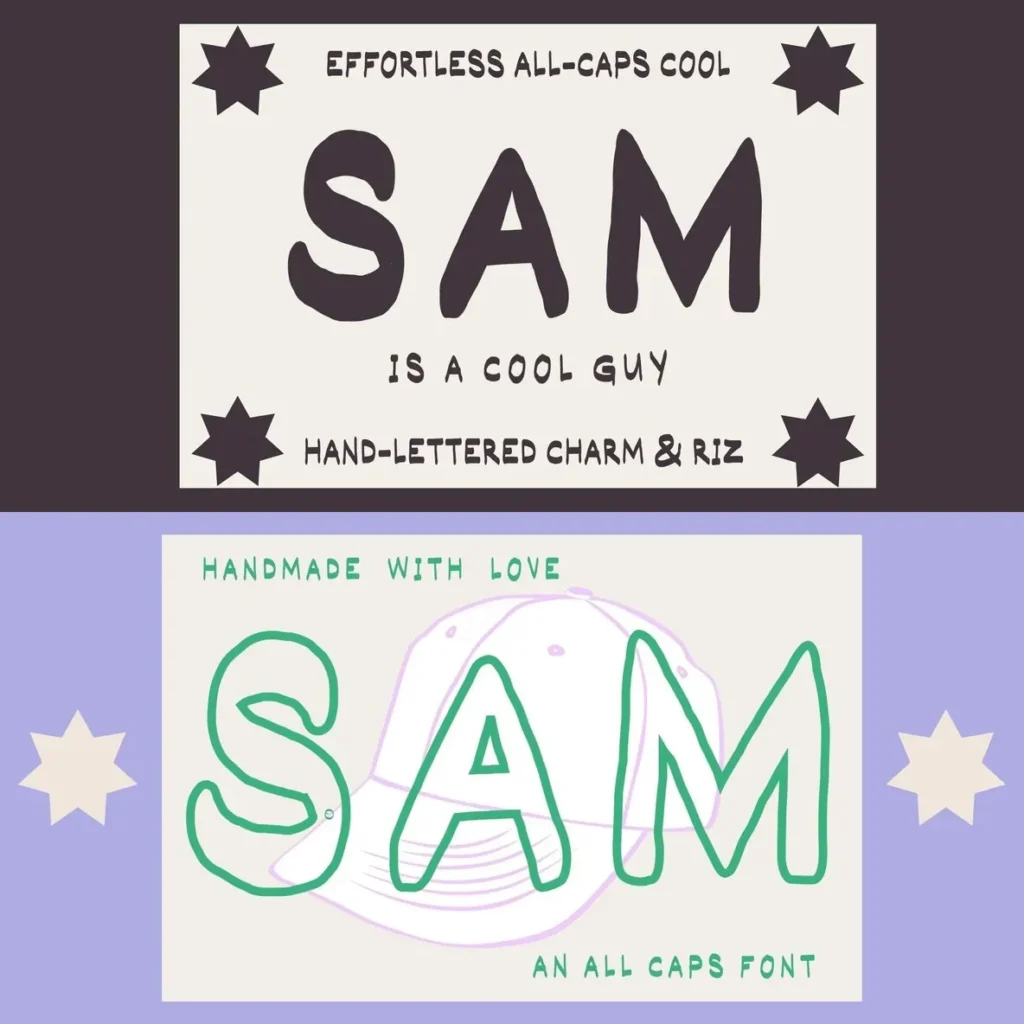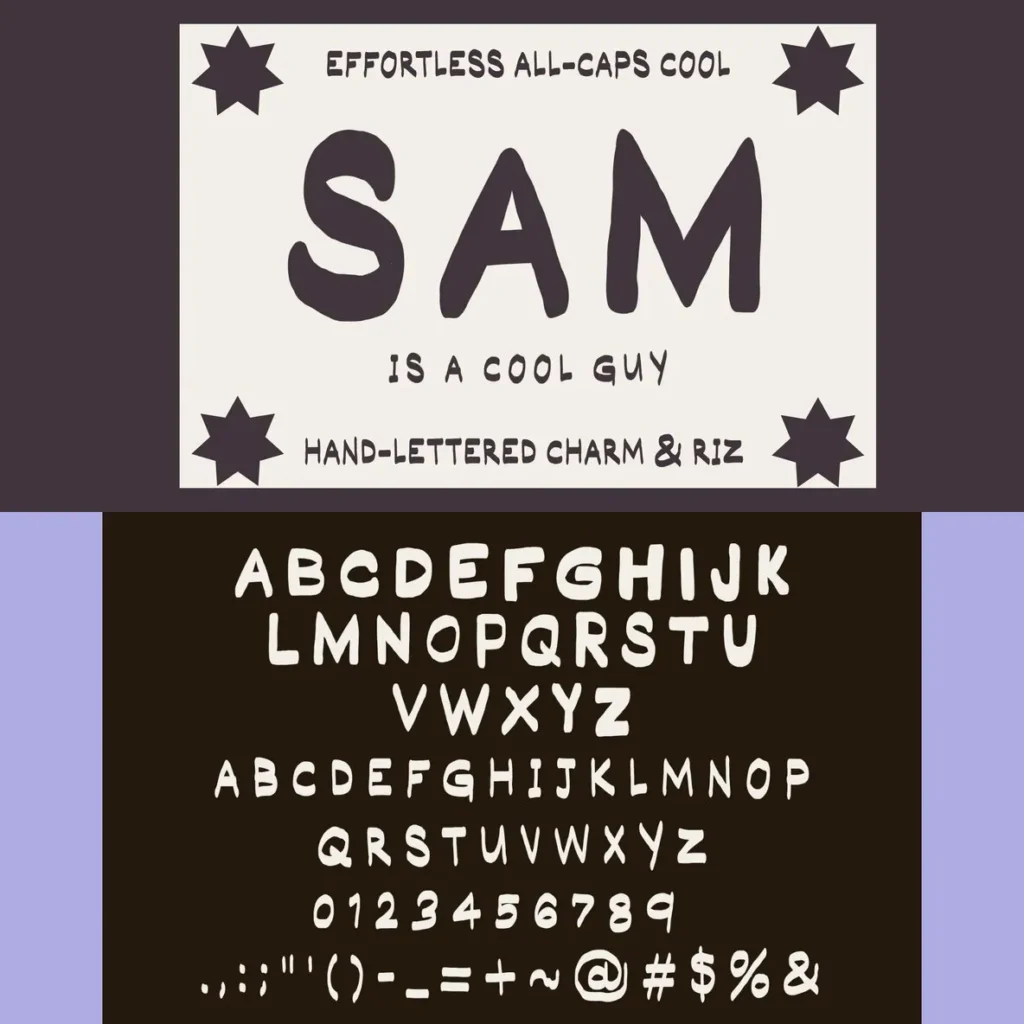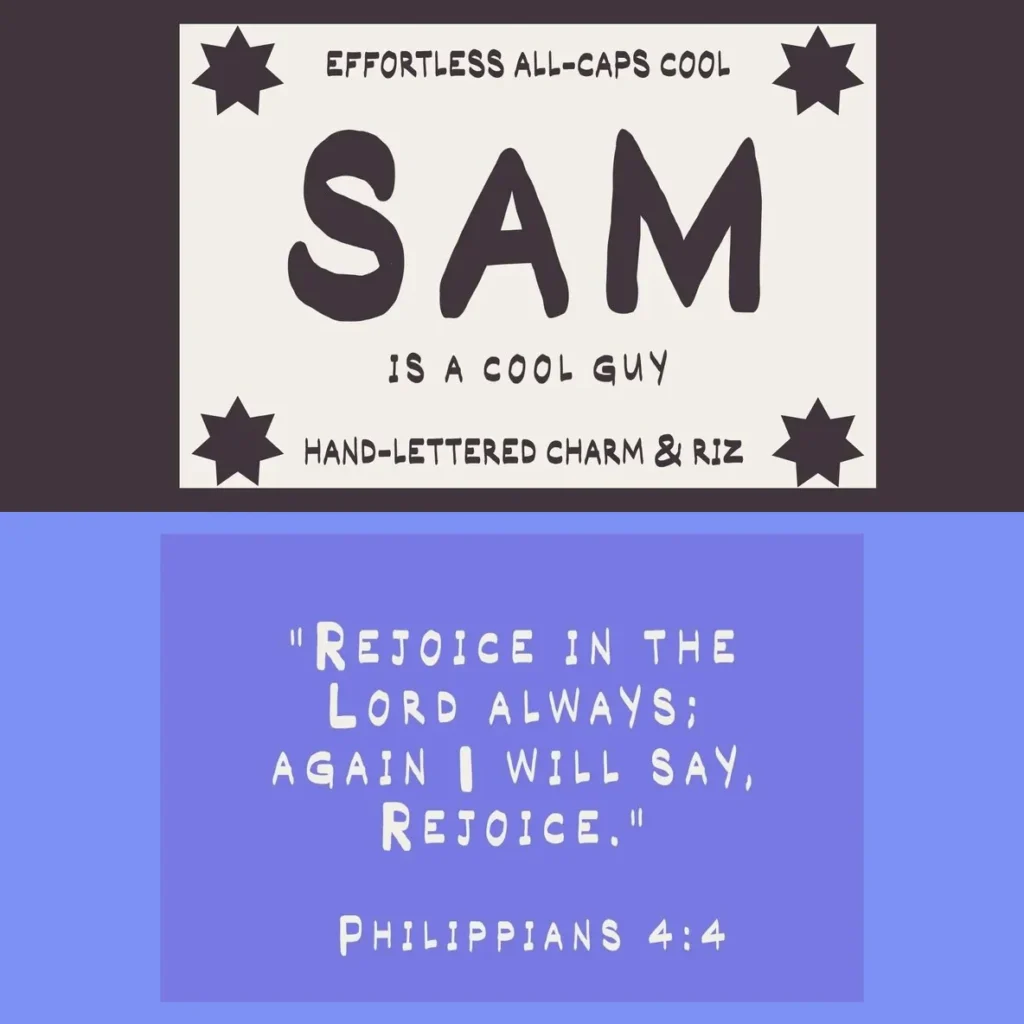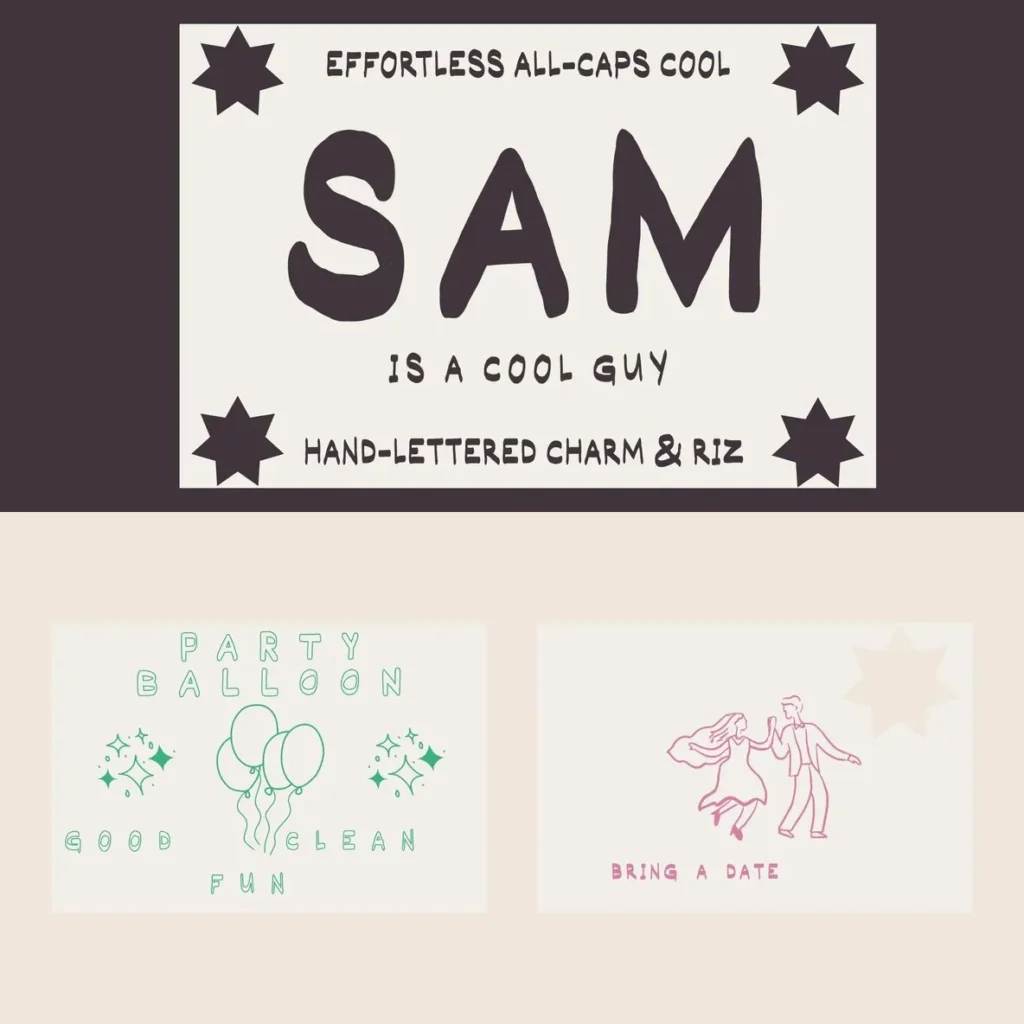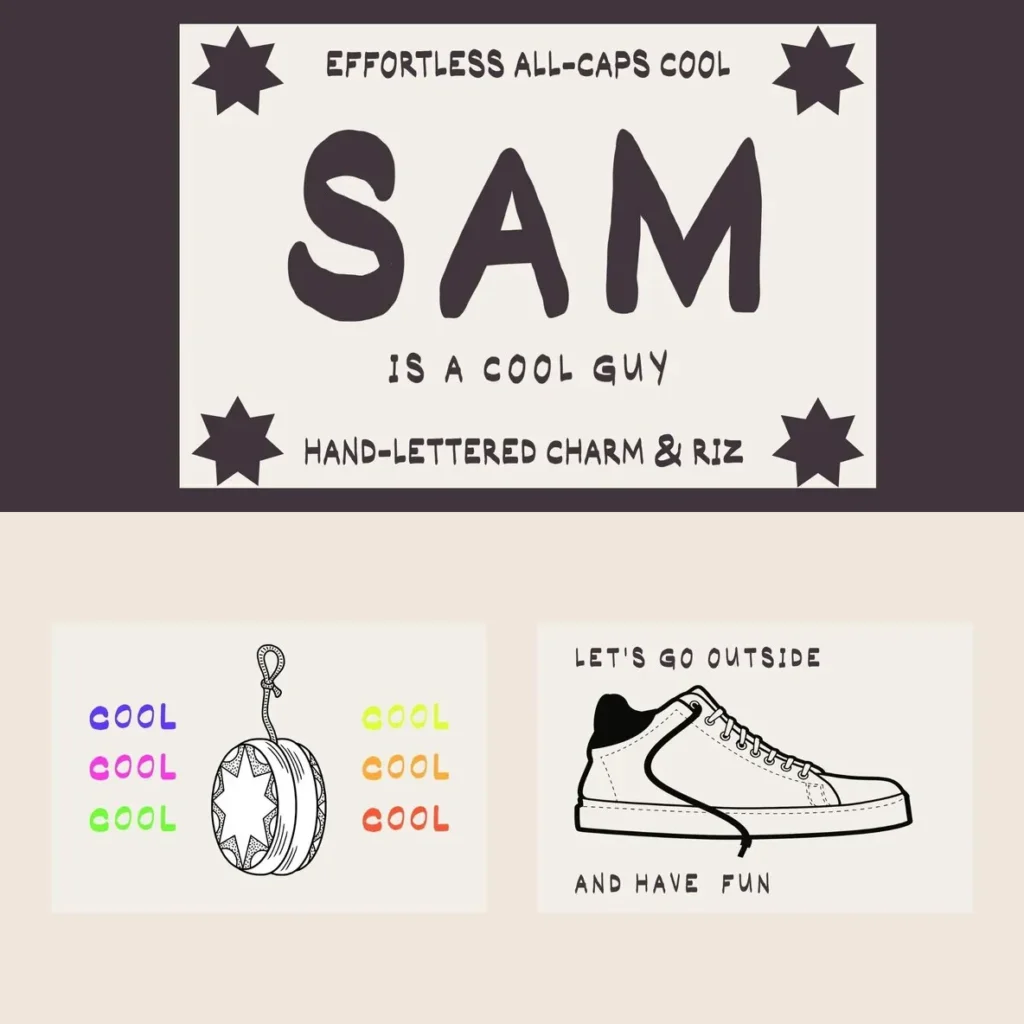
Sam — Handmade Wiggle, Clean Charm
Sam is an all-caps sans font with a little bit of wiggle, carrying the warmth that only comes from something handmade. Its letters feel slightly uneven, yet still straight, clean, and easy to use. That balance gives Sam a lively presence without losing clarity.
Versatile and eye-catching, Sam works beautifully for advertisement and product design. Its playful, cool character is sure to charm viewers and creators alike, bringing a spirited voice to visual identities, packaging, posters, and display settings. Sam never runs out of ideas, so have fun designing.